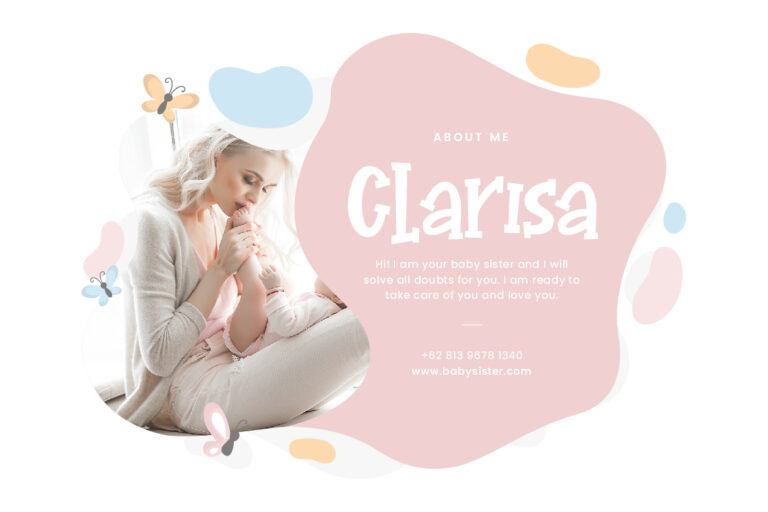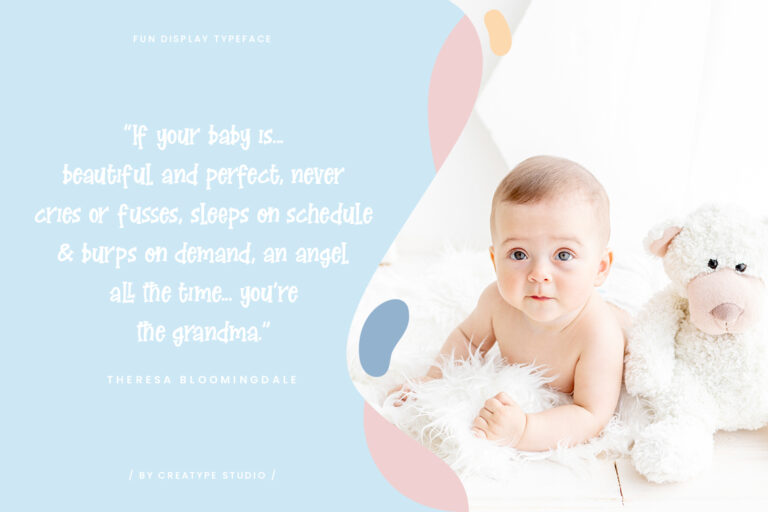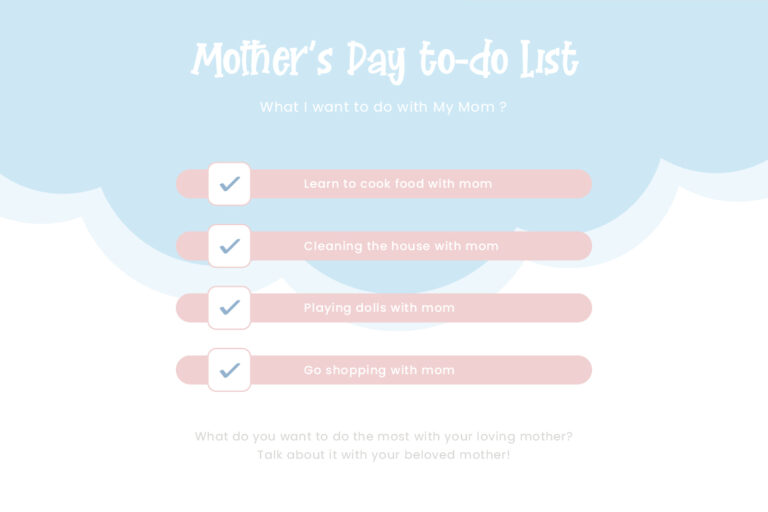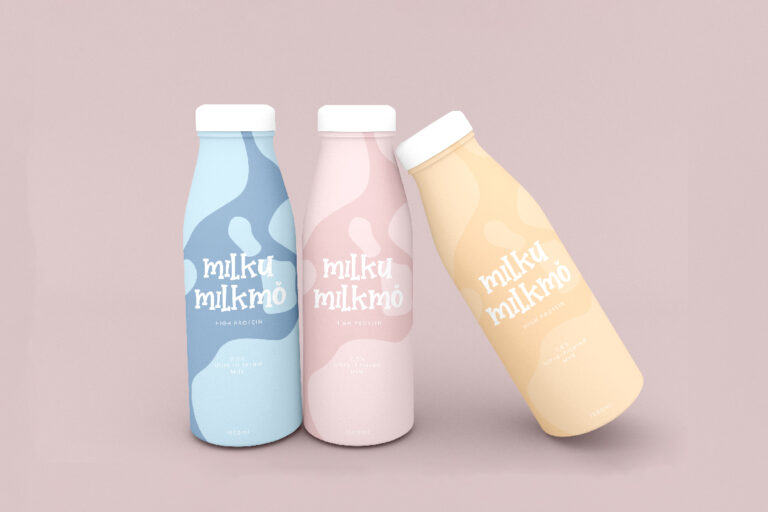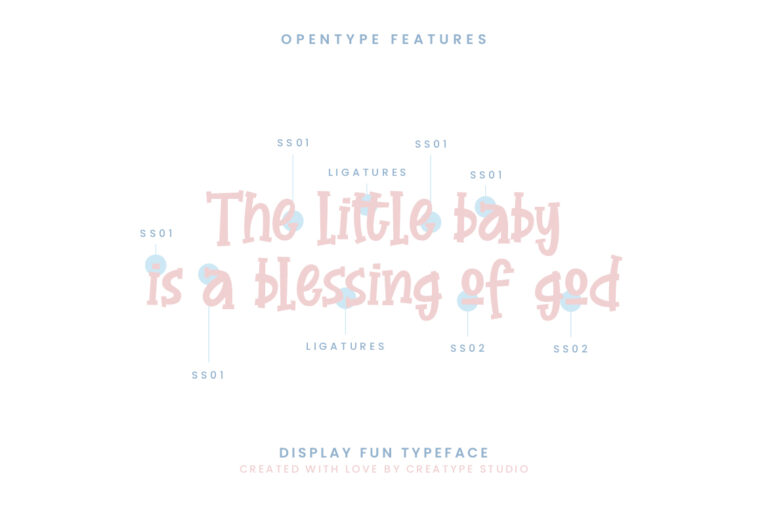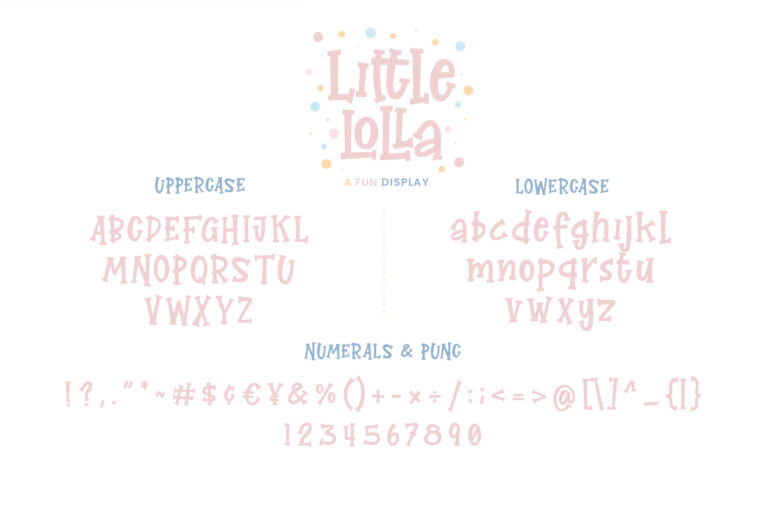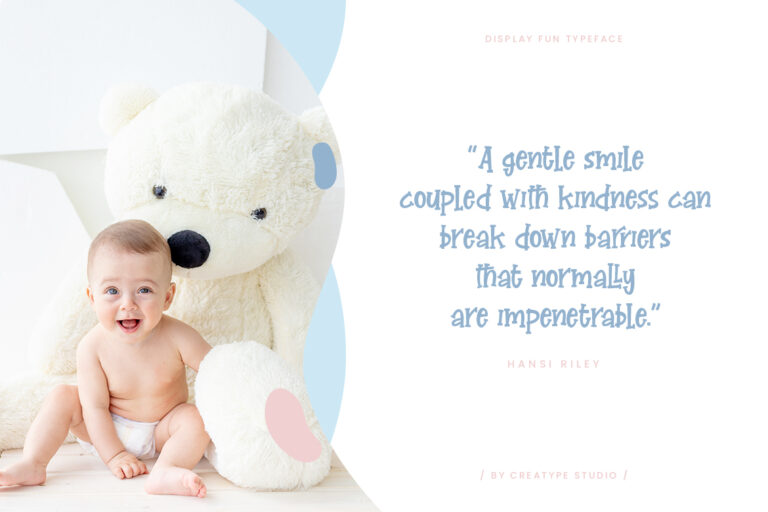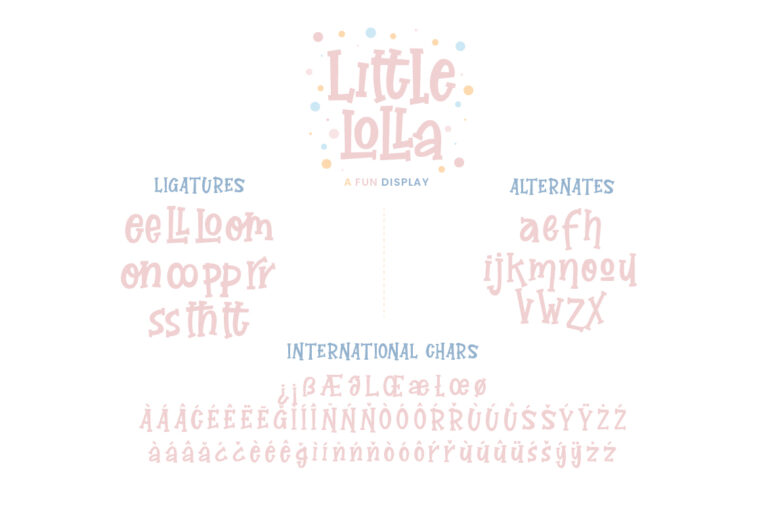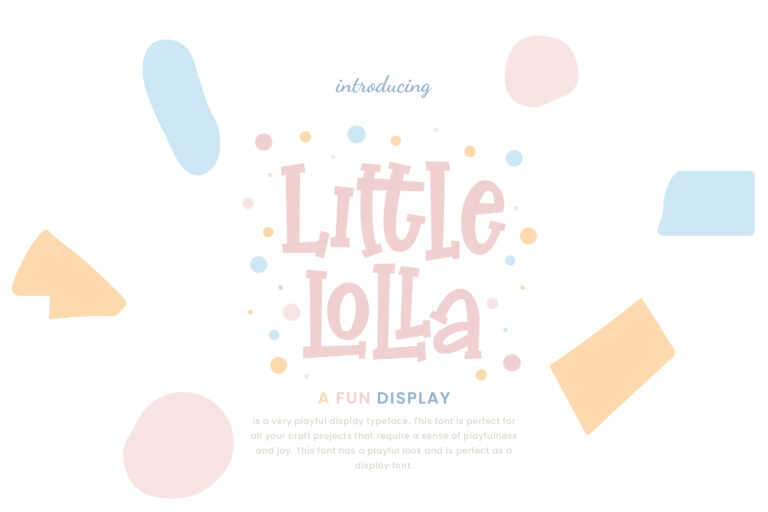
Little Lolla is a very playful display typeface. This font is perfect for all your craft projects that require a sense of playfulness and joy. This font has a playful look and is perfect as a display font.
Little Lolla is perfect for branding projects, logo, wedding designs, social media posts, advertisements, product packaging, product designs, label, photography, watermark, invitation, stationery and any projects that need handwriting taste.
Little Lolla Fun Display